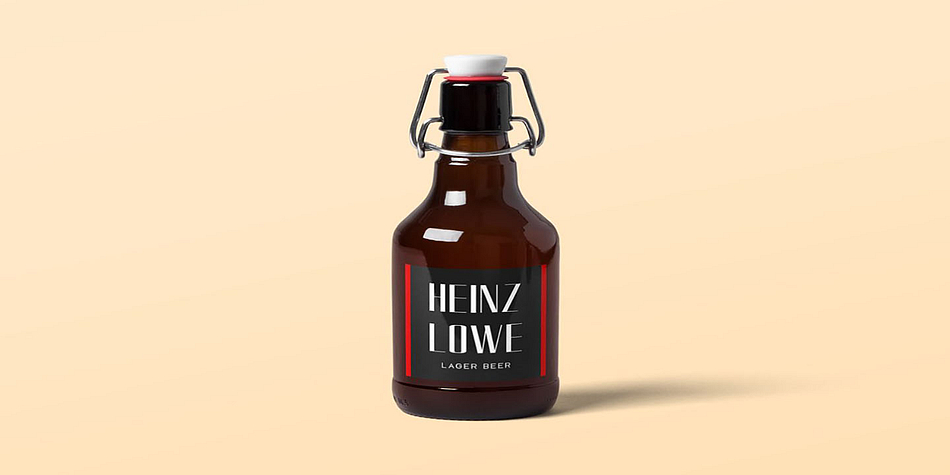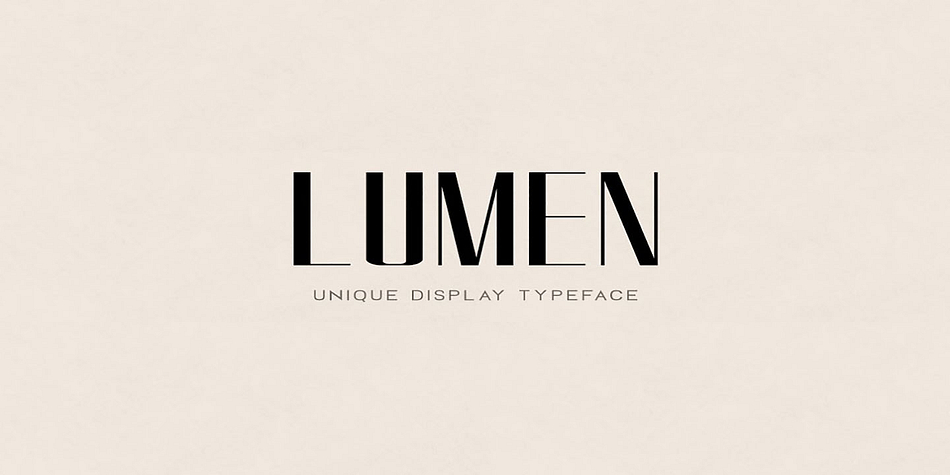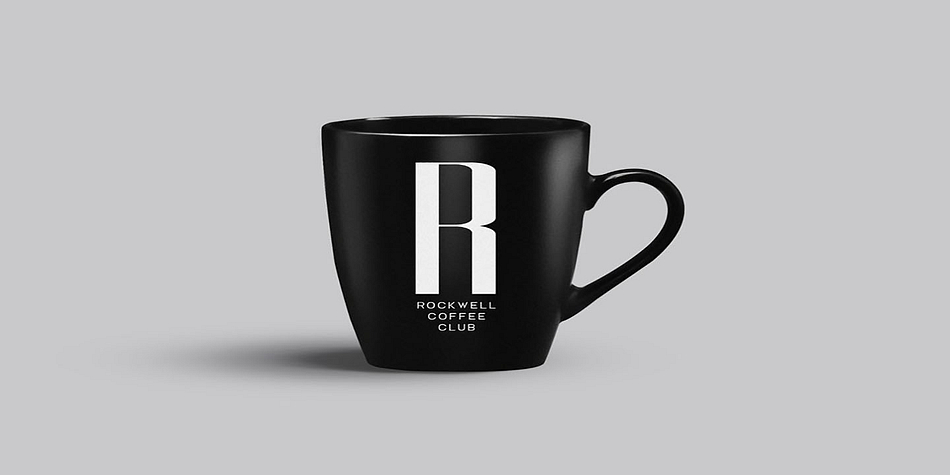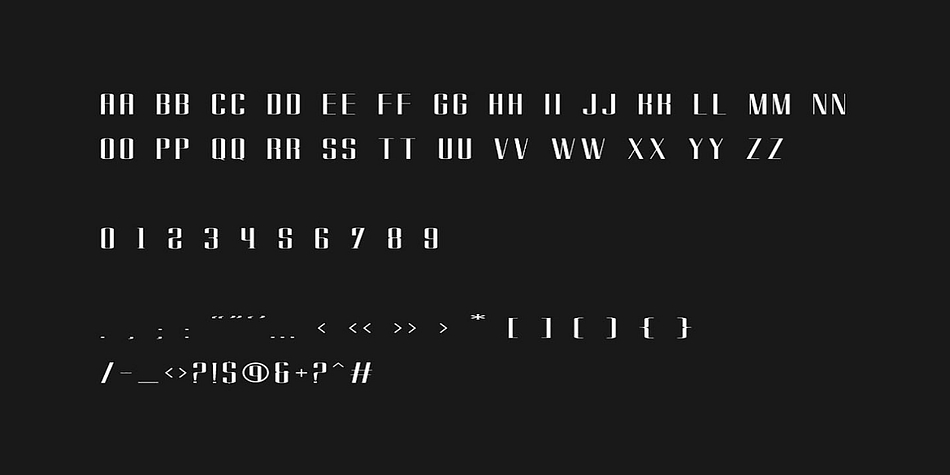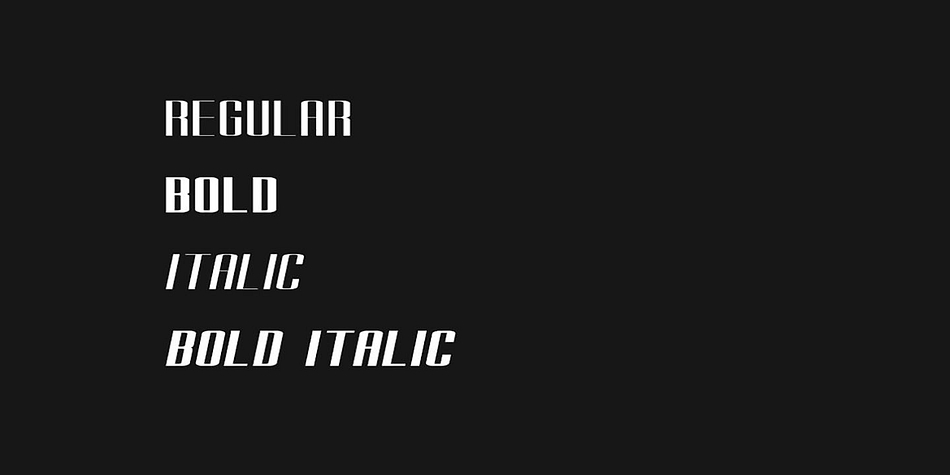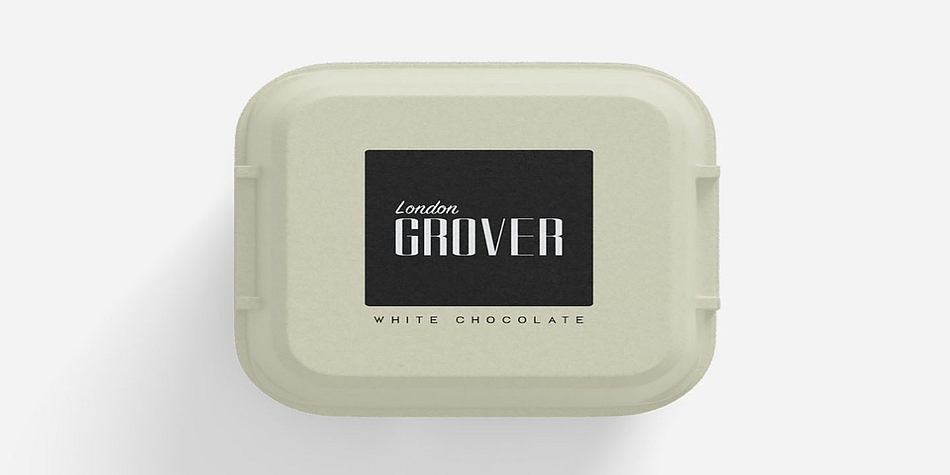
LUMEN
LUMEN is an art deco and display sans font family. This typeface has four styles and was published by Fontastica.
LUMEN, a truly unique all-caps display typeface inspired from retro design patterns and branding inspirations. This typeface is perfect for headlines, big text, branding, logotypes & display usage. This font is also perfect for creating outstanding logos, promotional content and marketing graphics that can really grab attention from your visitors. Please see the examples shown above to get an idea about the capability of this typeface.
LUMEN comes with two weights (Regular & Bold) along with italic versions of both weights. The pack contains OTF, TTF and Web Fonts (all EOT, SVG, TTF, WOFF, WOFF2 everything is included).